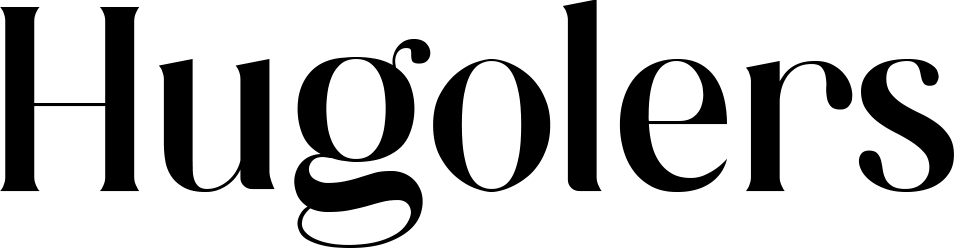
Hugolers Font
Hugolers is a modern-style serif font that beautifully combines modernism with classic style and resulted in this masterpiece. If you want your brand to sound graceful and elegant you can’t go wrong with Hugolers.
It’s a serif font that is bold, elegant, and clean-cut. Make sure you take advantage of its blinding charm on your branding, logotypes, websites, product packaging, and more.